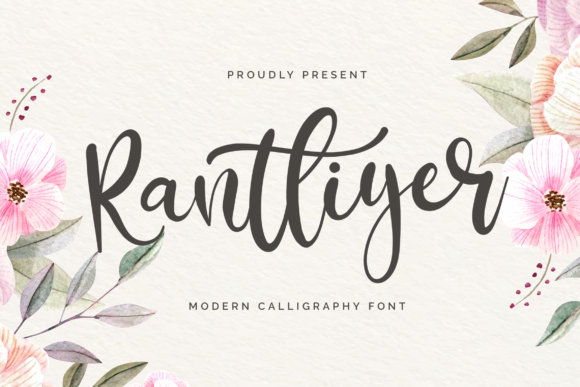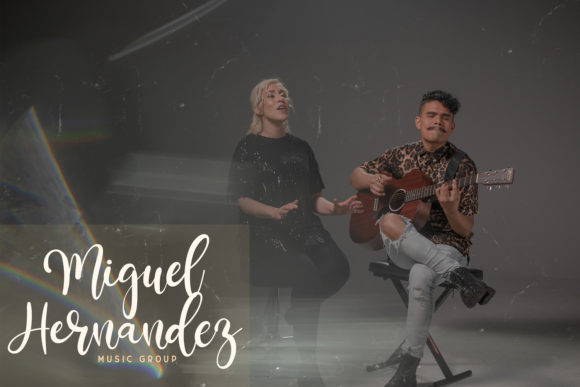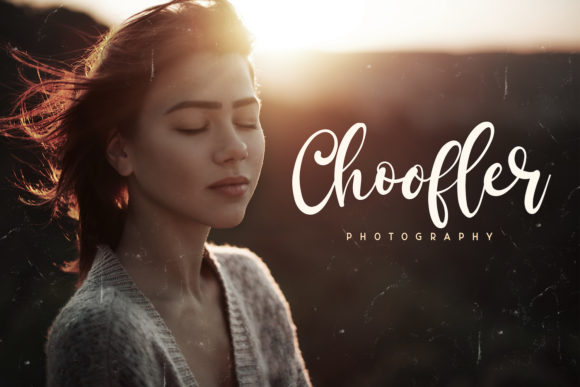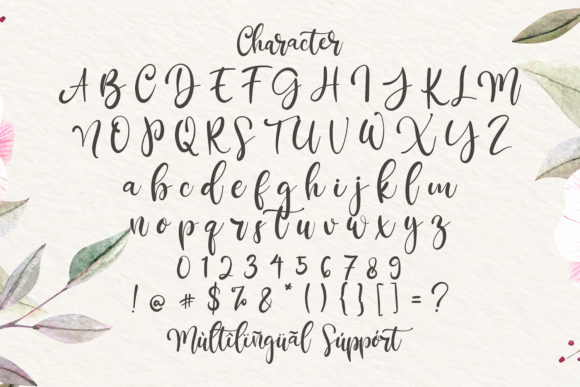
About Rantliyer Font
Introducing Rantliyer, an exquisite handwritten font that exudes elegance and artistry. This font is masterfully designed to become a true favorite among designers and creatives. Rantliyer beautifully balances its classy calligraphic influences with a contemporary and fresh touch, elevating your projects to the highest levels of sophistication and allure. Fall in love with Rantliyer and watch as your creations come alive with timeless beauty and grace.
Rantliyer’s exquisite handwritten style creates an air of refinement and artistic flair. Each letter is meticulously crafted, with a seamless blend of classic calligraphy and modern sensibility. Whether you’re working on wedding invitations, love letters, inspiring quotes, or any other creative endeavor, Rantliyer adds a touch of elegance that captivates and enchants.
The font’s versatility knows no bounds. As you embrace Rantliyer, you’ll discover how effortlessly it complements a diverse array of design projects. From luxurious wedding stationery to high-end branding, and from editorial layouts to digital artwork, Rantliyer’s sophistication enhances your creations with its exquisite allure.
Imagine using Rantliyer to create captivating typography art. Its delicate and artistic style becomes a centerpiece, adding a touch of class and sophistication to your designs. Let your creativity flow, and watch as your artwork comes alive with timeless beauty.
For wedding invitations that exude grandeur and refined elegance, Rantliyer brings an air of luxury and grace. Whether it’s a lavish affair or an intimate gathering, your invitations will stand out as a true work of art.
In the digital realm, Rantliyer adds a touch of authenticity to social media posts and blog graphics. Its exquisite calligraphic influences resonate with viewers, creating a genuine connection and leaving a lasting impression.
Branding and logo design reach new heights with Rantliyer. The font’s masterful craftsmanship elevates your brand identity, setting you apart with an aura of sophistication and modernity.
In conclusion, Rantliyer is more than just a font; it’s an embodiment of elegance and artistry. With its exquisite handwritten style and contemporary flair, Rantliyer becomes an invaluable asset for all your design projects. Embrace the refined charm of Rantliyer and watch as your projects reach new levels of sophistication and allure. Let your imagination soar in the exquisite embrace of Rantliyer, the handwritten font that defines timeless beauty and artistic brilliance.